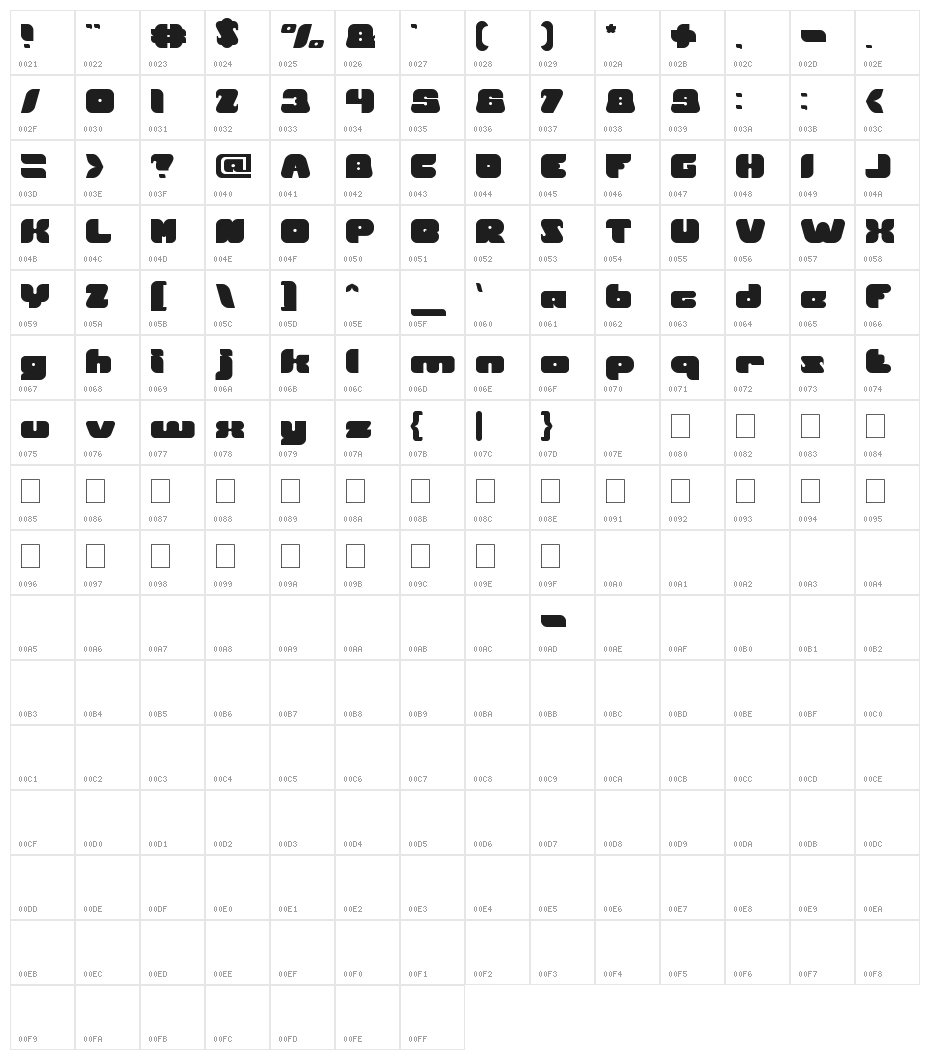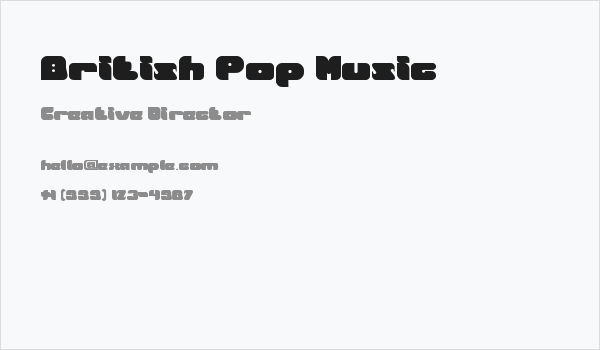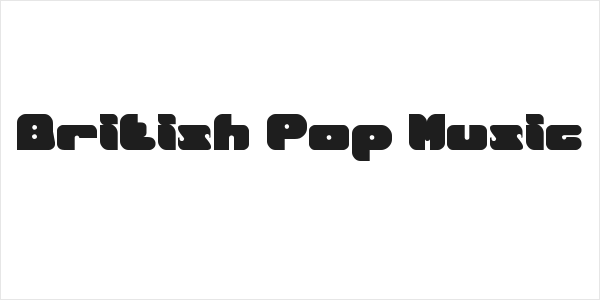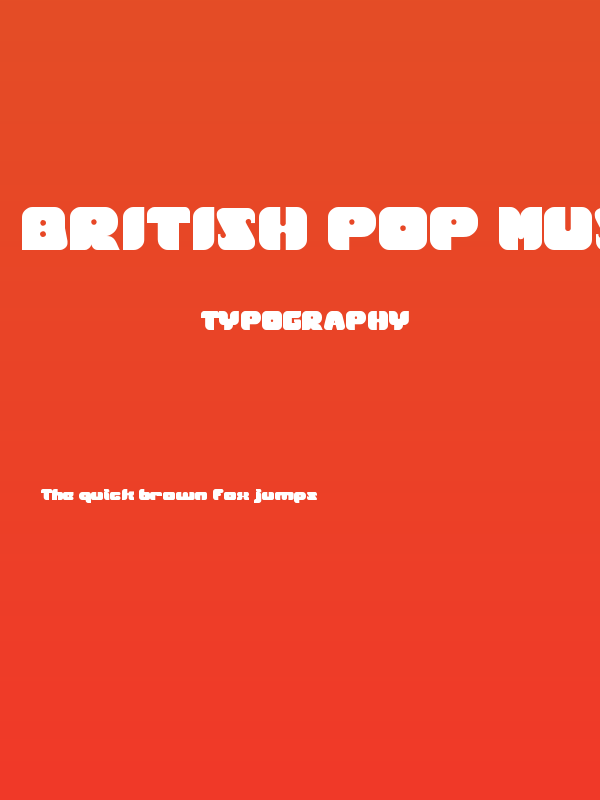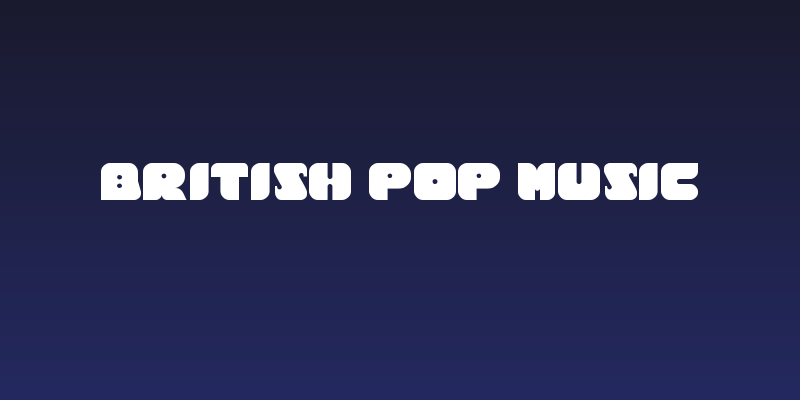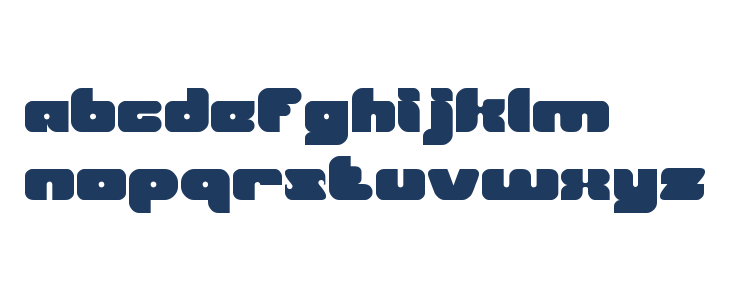
British Pop Music Font
British Pop Music Description
This font features a bold and playful design with rounded edges and a chunky appearance. The letters are uniformly thick, creating a strong visual impact. The style is reminiscent of retro pop culture, with a modern twist that makes it suitable for eye-catching headlines and creative projects. The characters are well-spaced, ensuring readability despite their boldness. This font is ideal for projects that require a fun and energetic vibe, such as posters, album covers, or branding for youthful and dynamic products.
| Overall Style | Retro, Modern |
| Proposed Projects | Perfect for posters, album covers, branding for youthful products, and creative headlines. |